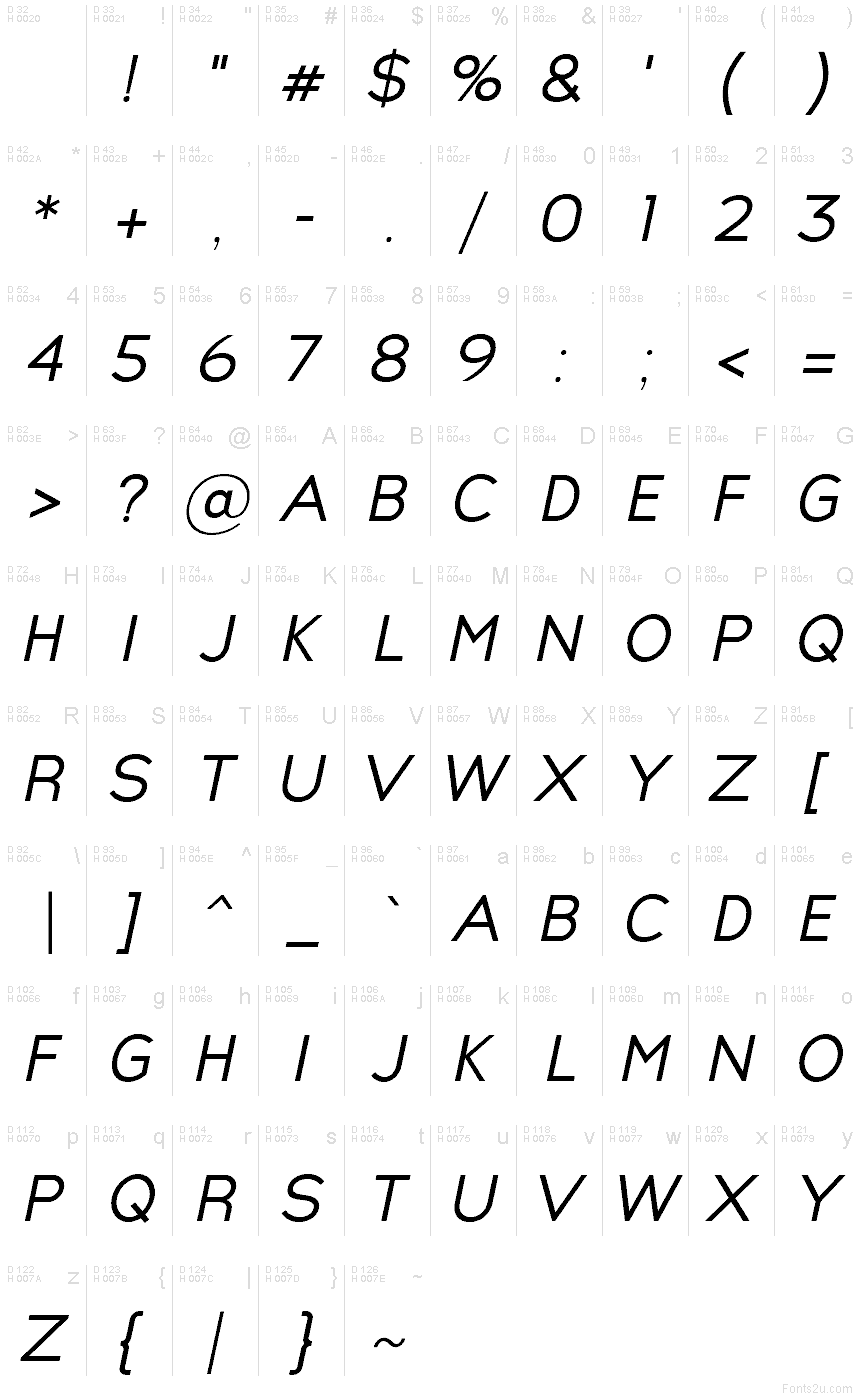
NsaiItalic
Nsai Italic font by Audry Kitoko Makelele is a sleek, modern font that embodies minimalism and clean lines. This sans serif typeface is built with geometric elements meant to give it a contemporary appearance. Use the free italic font in professional work, especially projects in tech and branding.